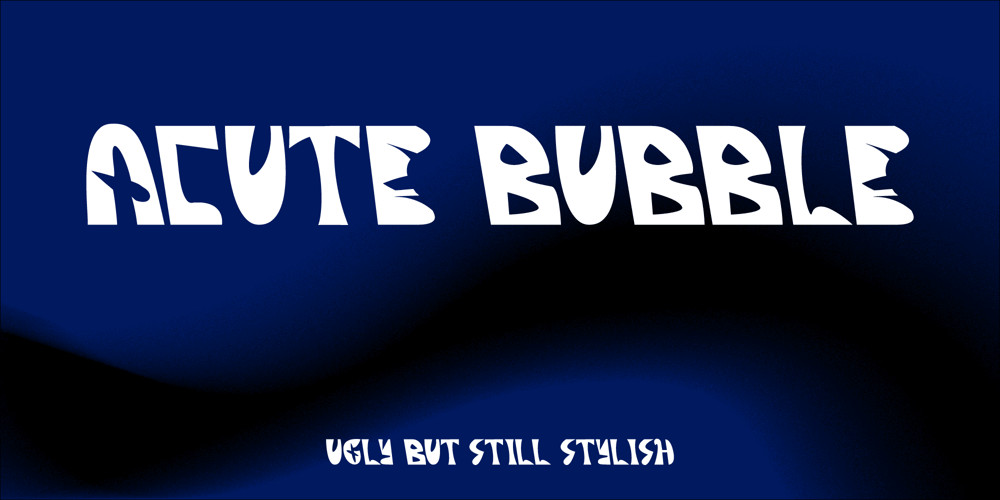
Acute Bubble Font Family was designed by Anton Zakatistov and published by Antiletter. Acute Bubble contains 1 styles and family package options. An Acute Bubble is an oxymoron and it perfectly reflects the specificity of the font a constant combination of smooth shapes and acute corners. This font is well suited for headings of designer banners and posters.